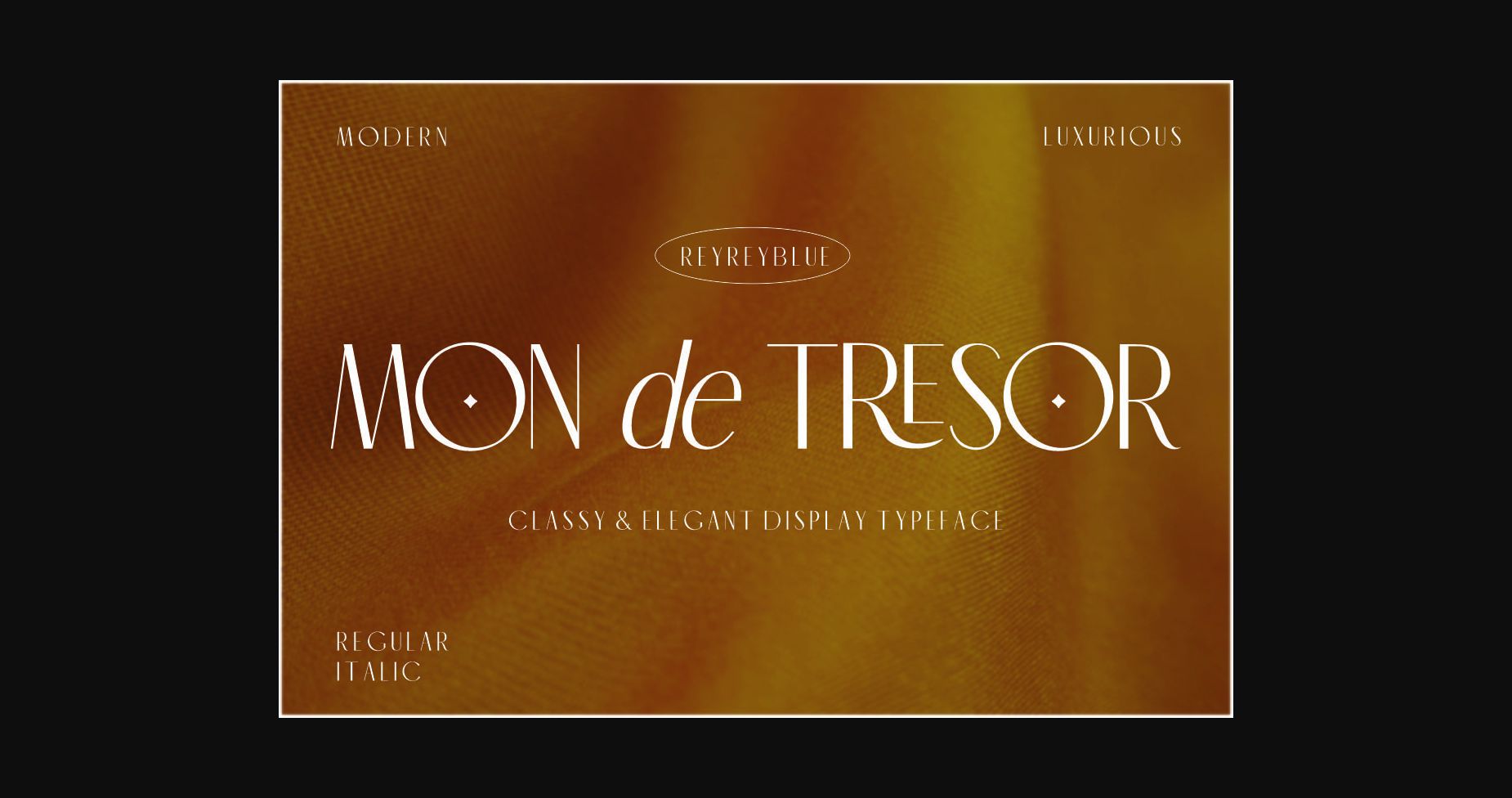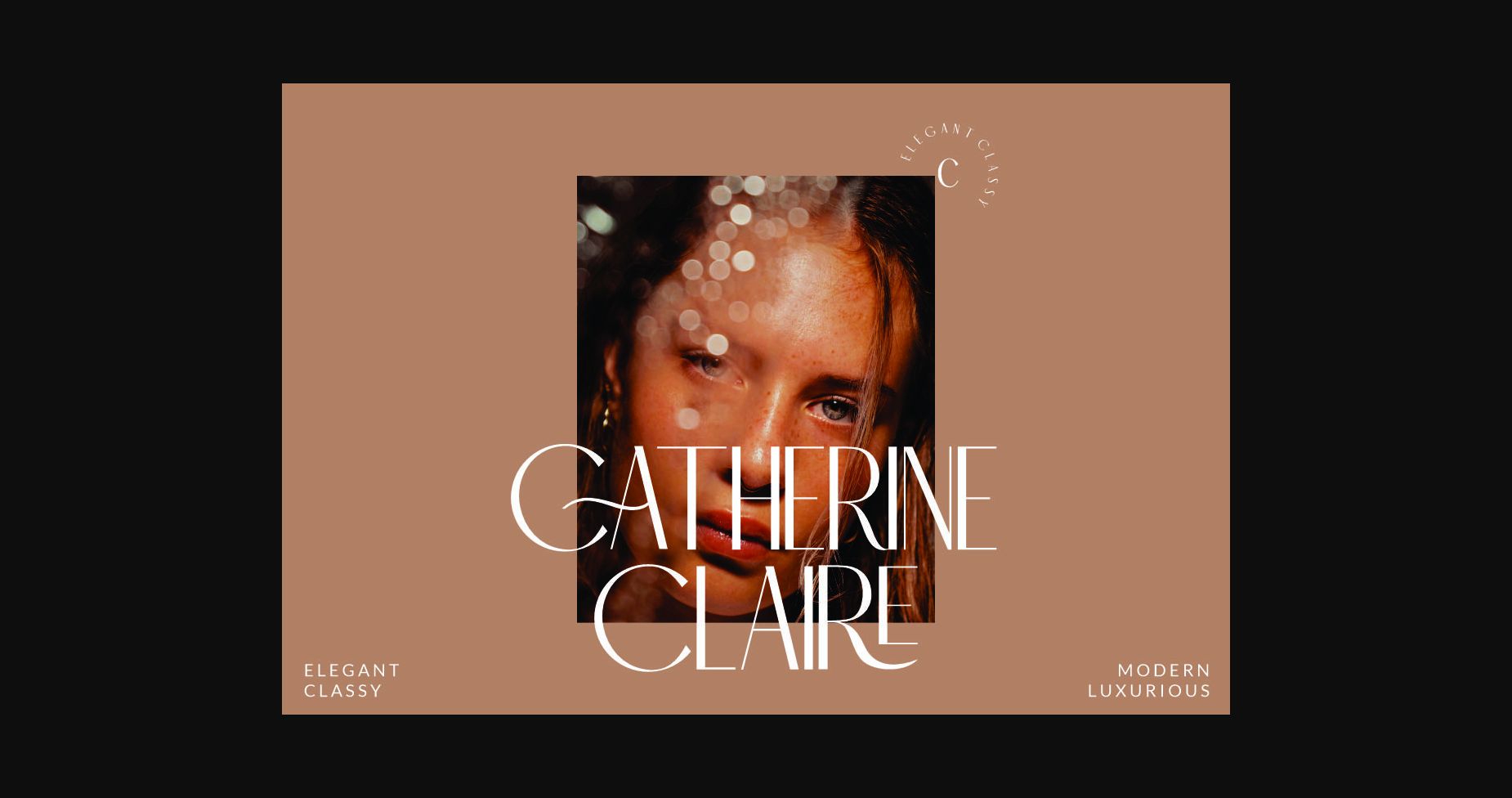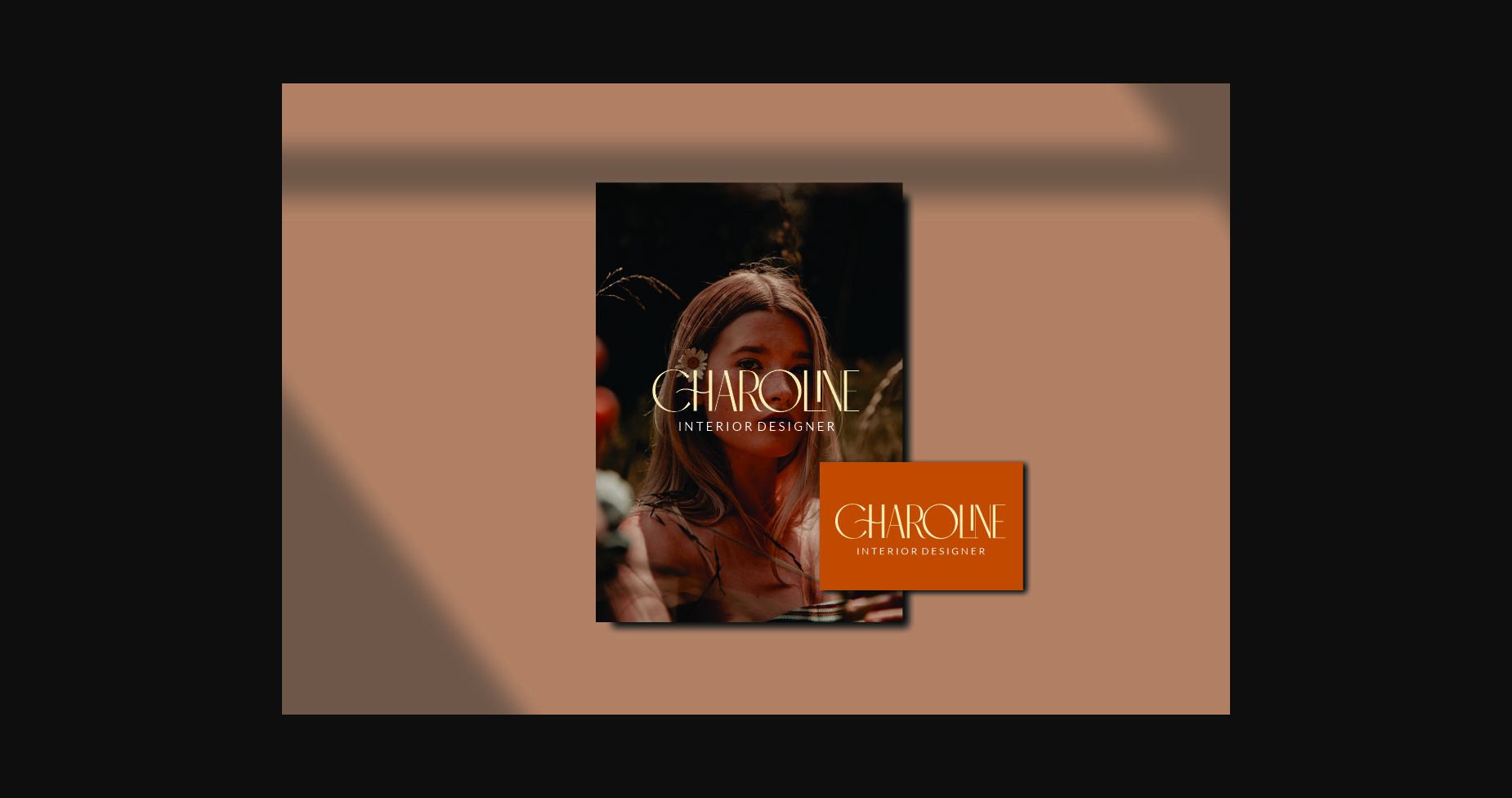
About Mon De Tresor Font
Mon De Tresor is an elegant and thin lettered sans serif font. It will add a luxury spark to any design project that you wish to create! This font is PUA encoded which means you can access all of the glyphs and swashes with ease!